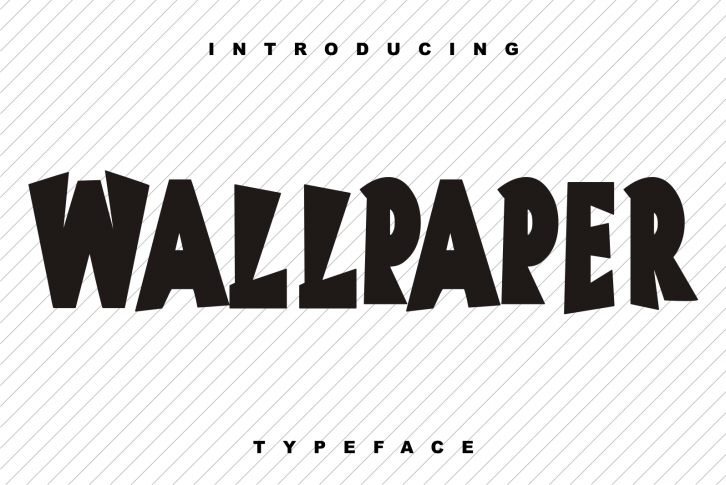
Wallpaper is a thick-lettered and cool display font. Simple but with a strong visual effect, this font will instantly make your creations more appealing than any others!